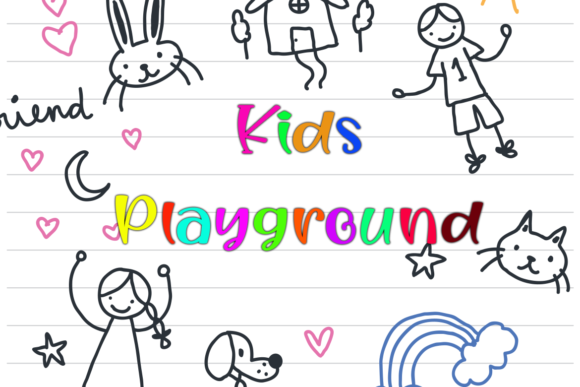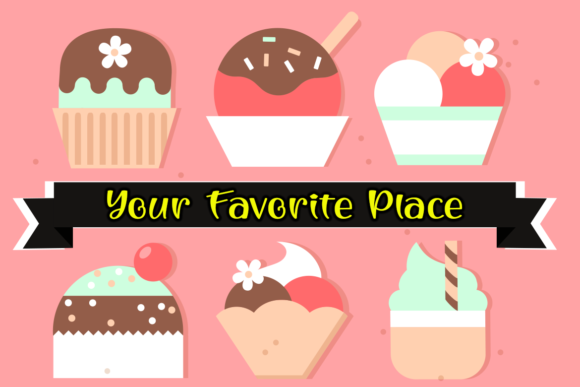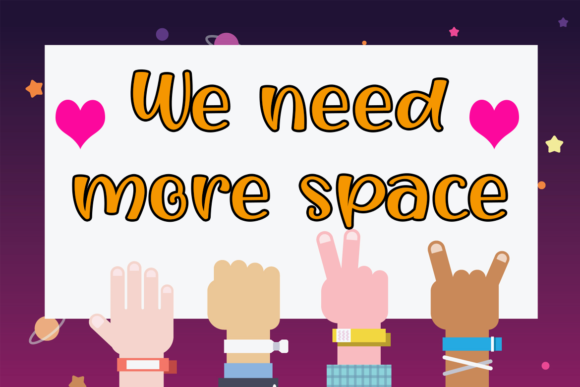
Introduction to Kiddos Planet Font
Kiddos Planet is a unique and cheerful display font.
Whether you are using it for cartoon-related designs, children’s games, or just any creation that requires a lovely touch, this font will be a fabulous choice .
Why Choose Kiddos Planet Font?
Kiddos Planet Font offers exceptional quality and versatility, making it a valuable addition to your design toolkit. Whether you’re creating for personal projects or commercial use, Kiddos Planet Font delivers professional results.